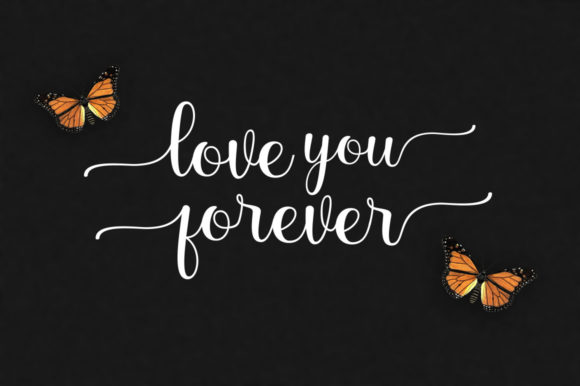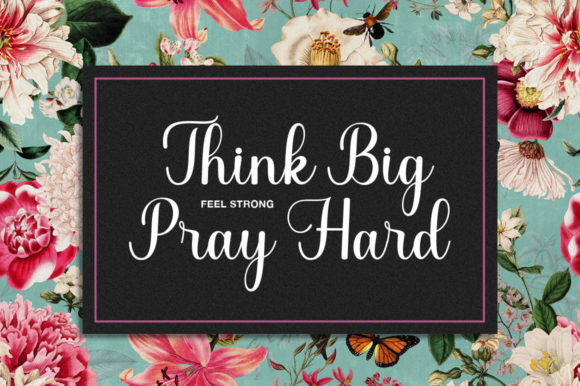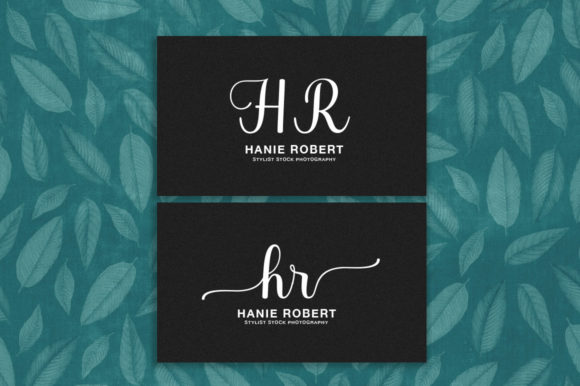
Introduction to Jonalyn Script Font
Jonalyn Script feels equally charming and elegant.
It looks stunning on wedding invitations, thank you cards, quotes, greeting cards, logos, business cards and every other design which needs a handwritten touch This font is PUA encoded which means you can access all of the glyphs and swashes with ease.
Key Features of Jonalyn Script Font
Why Choose Jonalyn Script Font?
Jonalyn Script Font offers exceptional quality and versatility, making it a valuable addition to your design toolkit. Whether you’re creating for personal projects or commercial use, Jonalyn Script Font delivers professional results.